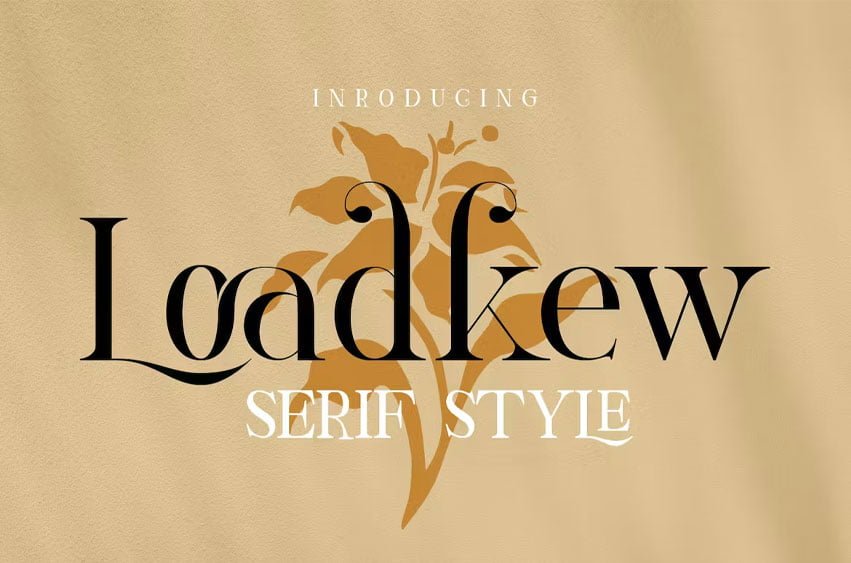
Loedkew Font is an elegant classic serif font family consisting of high contrast serif fonts with a vintage chic look, The handsome serif comes in 4 weights, (Regular, Italic, Bold, and Extra Bold,) are enhanced by OpenType features such as ligatures and stylistic alternates.
Loadkew can be used in high-end branding, logo designs, magazines, product packaging & invitations.